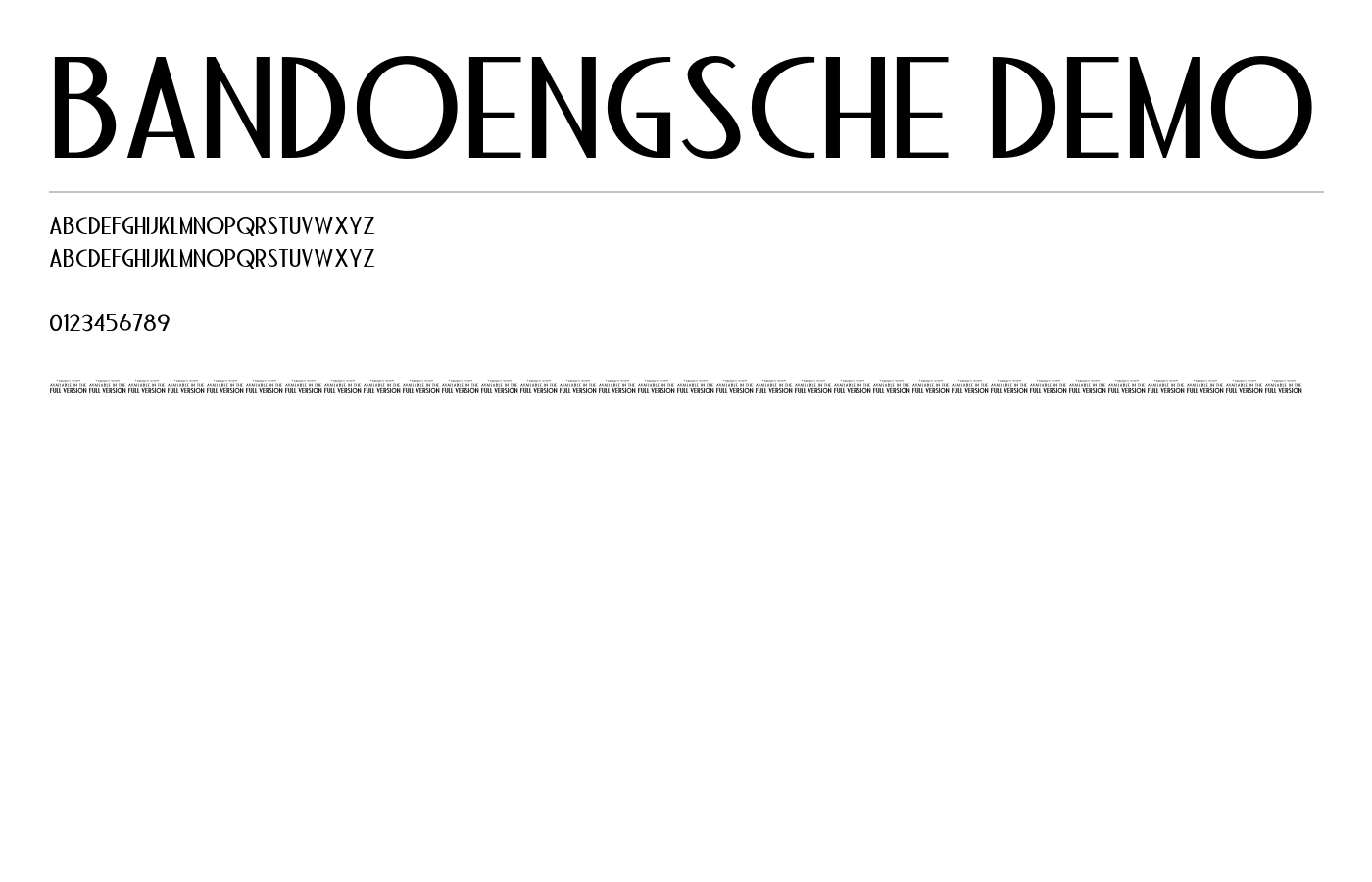
Bandoengsche DEMO is a sleek, condensed sans serif font with a modern, geometric feel. Its tall, narrow letterforms and consistent stroke weight create an elegant and sophisticated appearance, making it ideal for stylish headlines, logos, and editorial use. This font’s clean design and high readability suit contemporary branding that aims for a polished yet distinctive look.
Bandoengsche DEMO Font
About Bandoengsche DEMO Font
| Designer | Gumpita Rahayu |